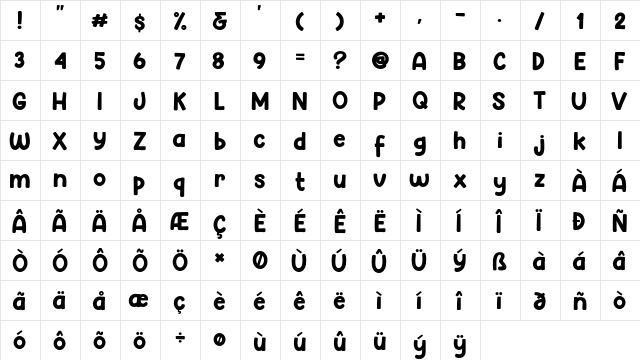
Hey Comic Regular
Design Context for Hey Comic Typeface
Hey Comic has an approachable, lighthearted character — its loose, expressive forms are well-suited to children's content, casual branding, and fun-first design.
Great for children's books, toy packaging, family event branding, and casual consumer-facing design.
Font Pairing: Pairs well with a rounded or humanist sans for body copy, maintaining the friendly tone without relying on Hey Comic to carry extended reading.
Pro Tip: Avoid using Hey Comic for long passages of text — it works best for headlines, labels, and short calls to action.